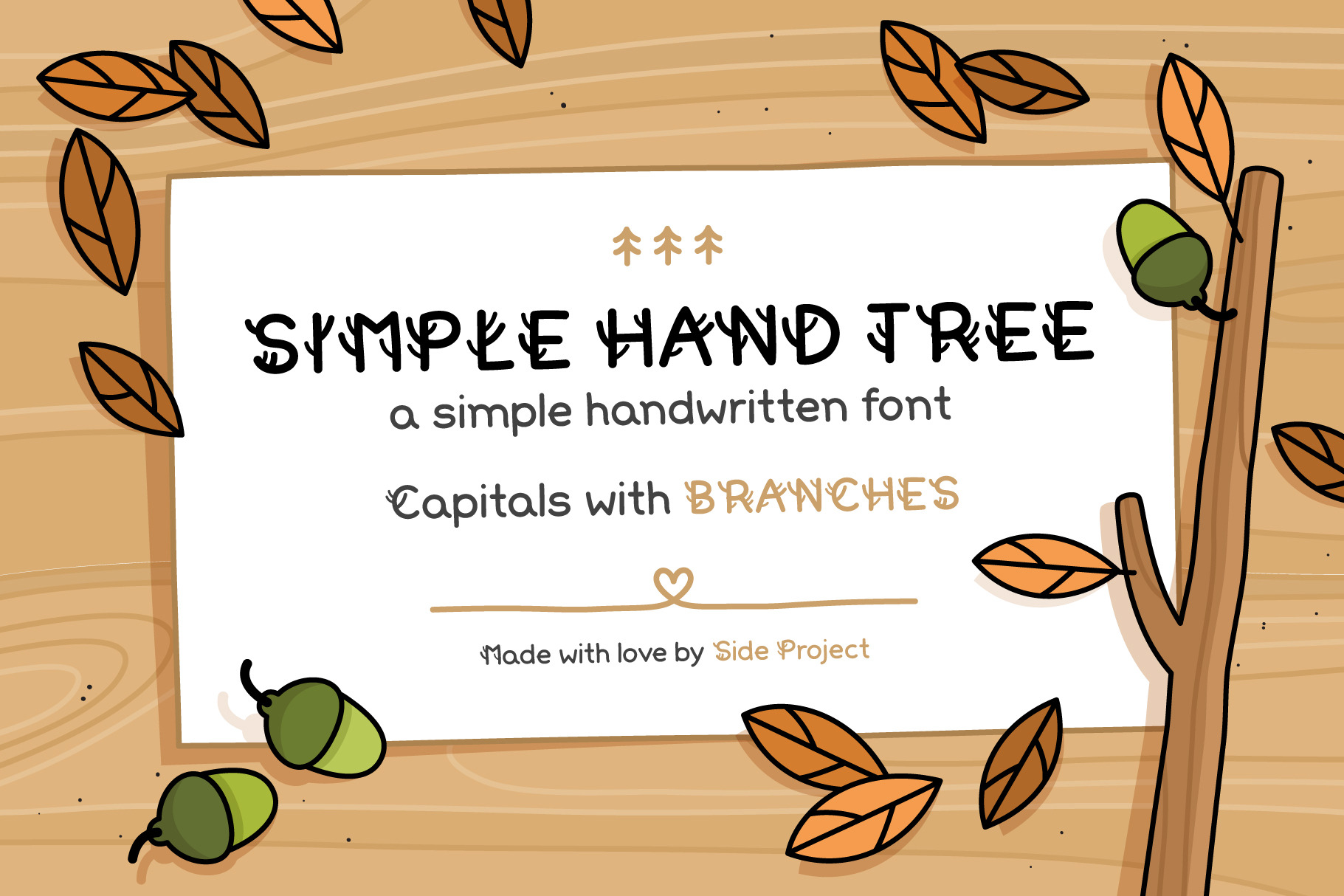
Simple Hand Tree Handwritten Font
Well, hello there! We present to you Simple Hand Tree. It will grow on you!
Simple Hand Tree is a simple sans serif handwritten .TTF and .OTF font. Readable and tidy but also fun, with a touch of whimsy!
With over 300 glyphs (which include: uppercase and lowercase letters, numbers, symbols and accented characters) this font supports multiple languages: Afrikaans, Basque, Breton, Catalan, Croatian, Czech, Danish, Dutch, English, Estonian, Finnish, French, Gaelic, German, Hungarian, Icelandic, Indonesian, Irish, Italian, Latvian, Lithuanian, Norwegian, Polish, Portuguese, Romanian, Sami, Serbian (Latin), Slovak, Slovenian, Spanish, Swahili, Swedish and Turkish.